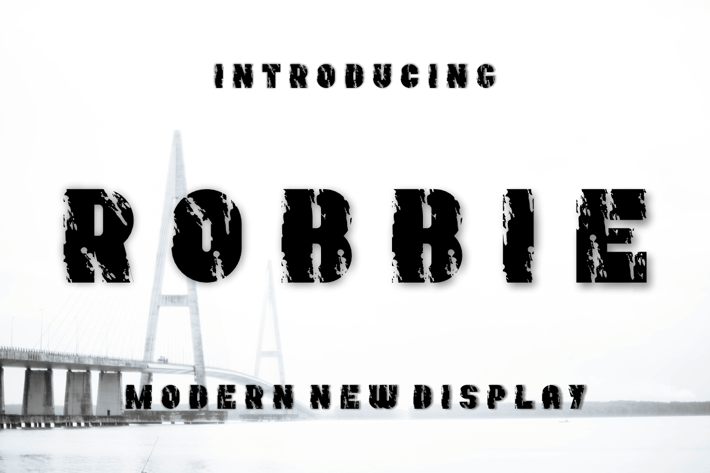
ROBBIE Font
Introducing our new product ROBBIE Font - Modern Font
ROBBIE Font - Modern Font is a bold and authentic display font. The font is suitable for any branding project like logo, t-shirt printing, esport, and many more. outstanding in a wide range of contexts.